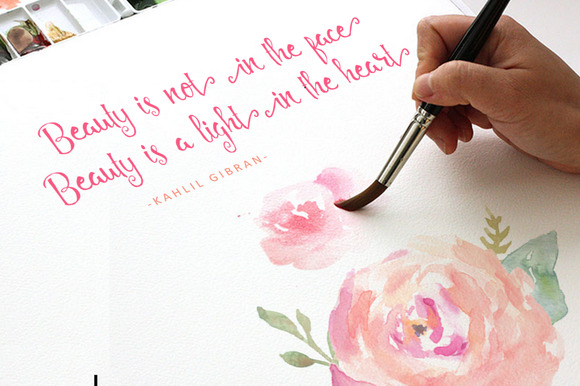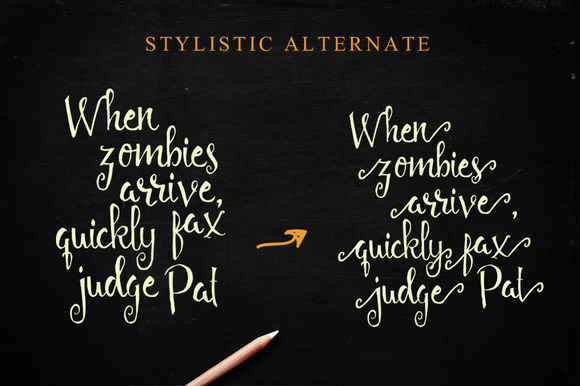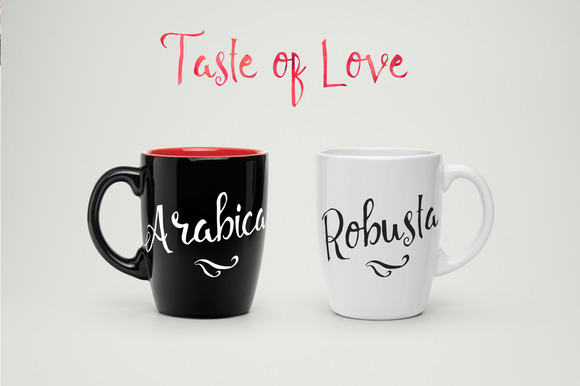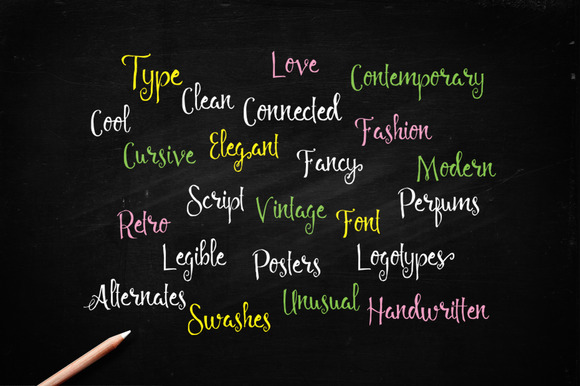
Discover the Elegance of Angelia Script Font
Are you a designer or crafter looking for a unique and beautiful font to elevate your creative projects? Look no further than Angelia Script Font, a stunning handmade script with a natural look that is sure to capture the hearts of anyone who lays eyes on it.
What is Angelia Script Font?
Angelia Script Font is a carefully crafted typeface that exudes elegance and sophistication. With its fluid strokes and natural imperfections, this font is perfect for creating beautiful and eye-catching designs that stand out from the crowd. Whether you’re working on a branding project, a wedding invitation, or a craft project, Angelia Script Font is the perfect choice.
Characteristics of Angelia Script Font
So, what makes Angelia Script Font so special? Here are just a few of its key characteristics:
- Handmade with love: Angelia Script Font is a true handmade font, crafted with care and attention to detail to give it a unique and personal touch.
- Natural look: With its subtle imperfections and fluid strokes, Angelia Script Font has a natural look that is perfect for creating designs that feel organic and authentic.
- Elegant and sophisticated: This font is perfect for creating designs that exude elegance and sophistication, making it ideal for high-end branding projects and luxury crafts.
- Highly versatile: Whether you’re working on a digital project or a print project, Angelia Script Font is highly versatile and can be used in a wide range of applications.
Uses for Angelia Script Font
So, what can you use Angelia Script Font for? The possibilities are endless! Here are just a few ideas to get you started:
- Branding and logos: Use Angelia Script Font to create a beautiful and memorable logo for your business or brand.
- Wedding invitations and stationery: This font is perfect for creating elegant and sophisticated wedding invitations, thank you cards, and other stationery.
- Craft projects: From knitting patterns to papercrafting, Angelia Script Font is perfect for adding a touch of elegance to your craft projects.
- Digital designs: Use Angelia Script Font to create stunning digital designs, including social media graphics, blog headers, and more.
Why Choose Angelia Script Font?
With so many fonts to choose from, why should you choose Angelia Script Font? Here are just a few reasons:
- Unique and distinctive: Angelia Script Font is a truly unique and distinctive font that will set your designs apart from the crowd.
- High-quality design: This font is carefully crafted to ensure that it is of the highest quality, with beautiful and consistent lettering.
In conclusion, Angelia Script Font is a beautiful and elegant handmade script font that is perfect for designers and crafters looking to add a touch of sophistication to their creative projects. With its natural look, fluid strokes, and highly versatile design, this font is sure to become a favorite in your design arsenal. So why wait? Download Angelia Script Font today and start creating stunning designs that will leave a lasting impression!